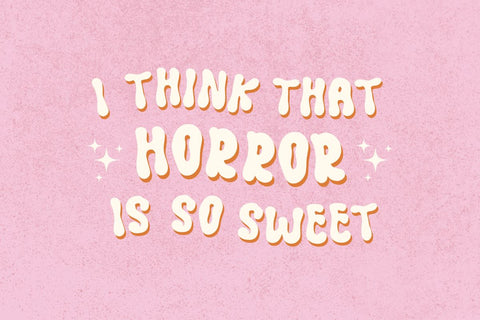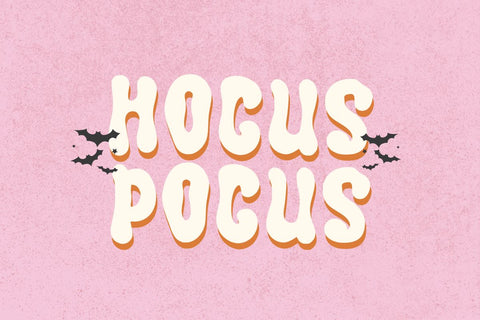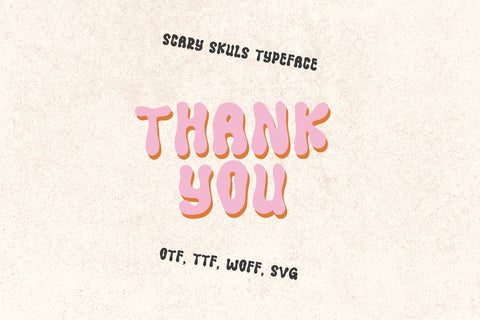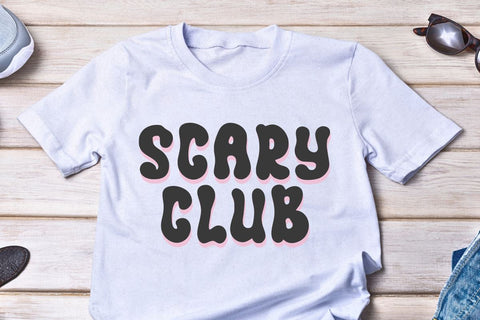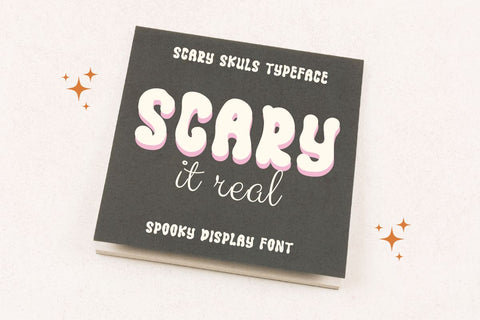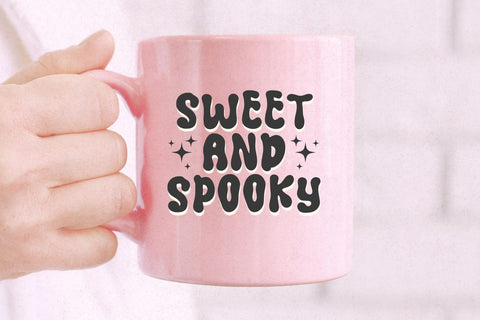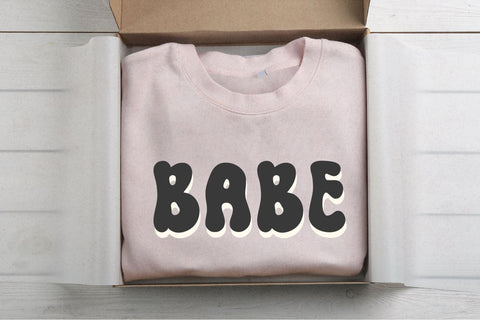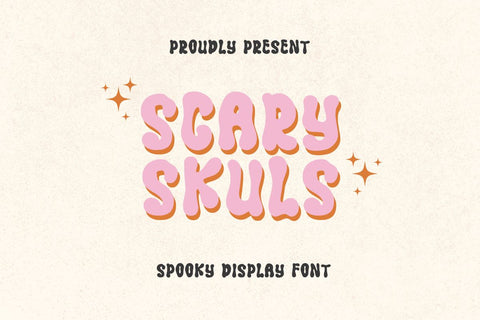
Scary Skuls - Spooky Display Font
Hi, Introducing Scary Skuls - Spooky Display Font
A Spooky Display Font with a spooky and unique style. This font is cool for mugs, t-shirts, quotes, tote bags, greeting cards etc